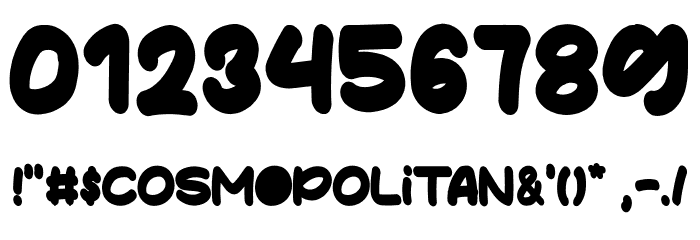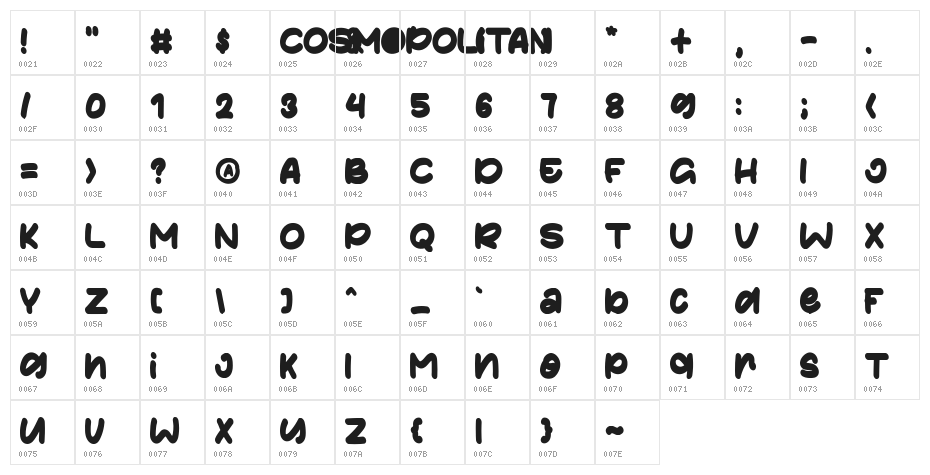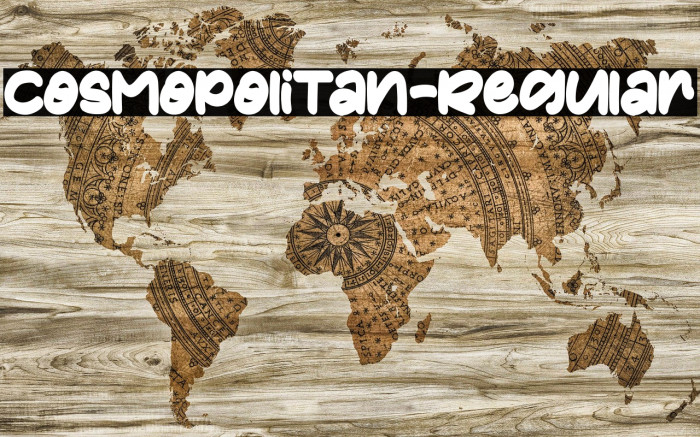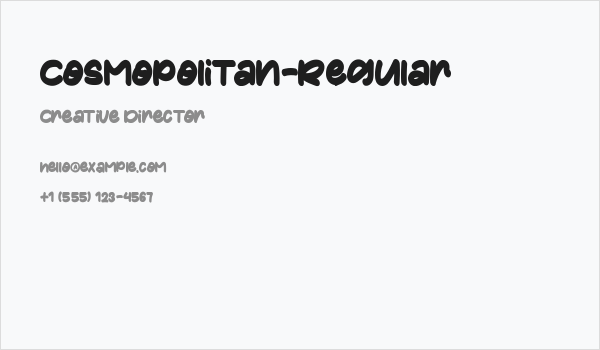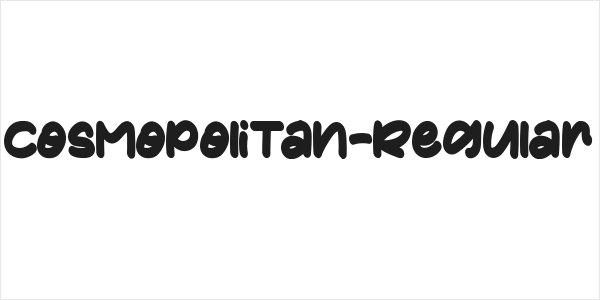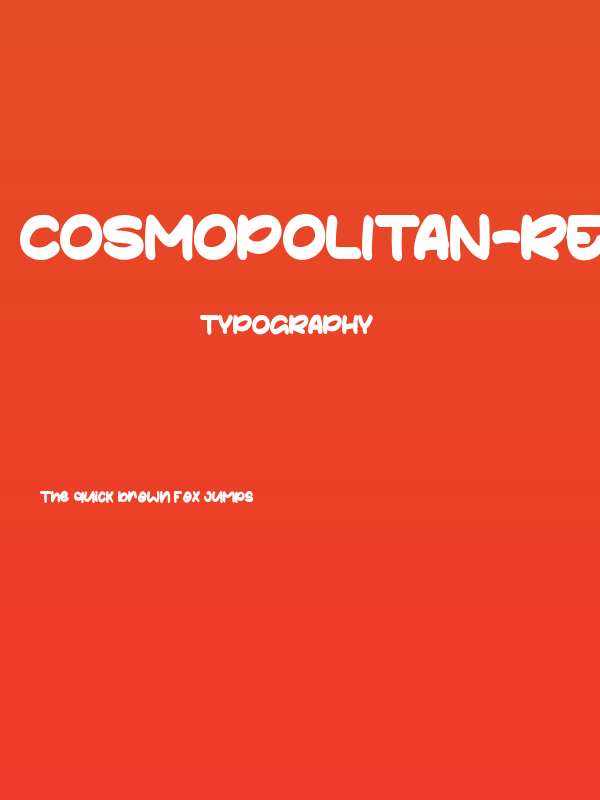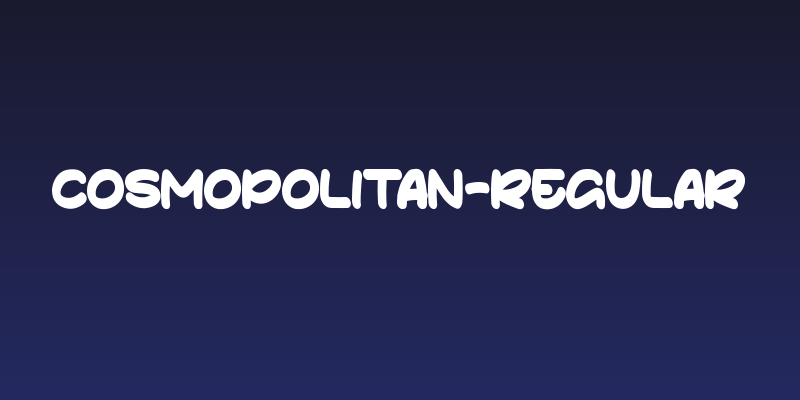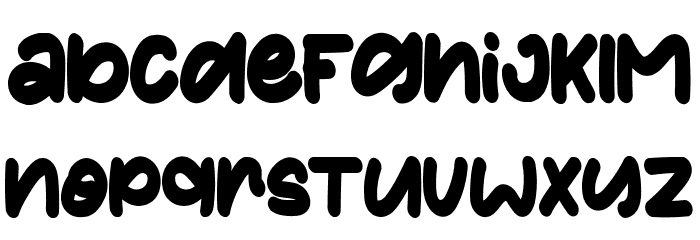
Cosmopolitan-Regular Font
Cosmopolitan-Regular Description
This font features a bold and playful design with rounded, thick strokes that give it a friendly and approachable appearance. The characters are uniformly wide, with a consistent thickness that adds to its boldness. The uppercase and lowercase letters maintain a cohesive style, with slight variations in curvature that add a touch of uniqueness. The numbers are equally bold, ensuring readability and consistency across different uses. Special characters are designed to blend seamlessly with the overall style, maintaining the same playful and bold aesthetic. This font is ideal for projects that require a fun and engaging look, such as children's books, playful branding, or creative posters.
| Overall Style | Playful, Modern |
| Proposed Projects | Ideal for children's books, playful branding, creative posters, and any project needing a fun, engaging look. |